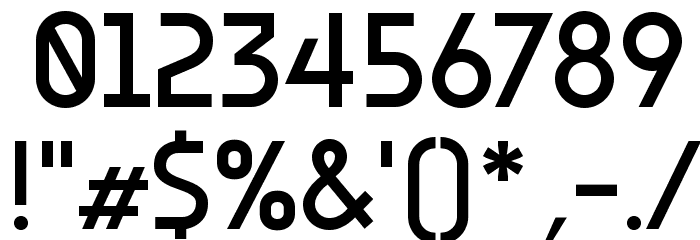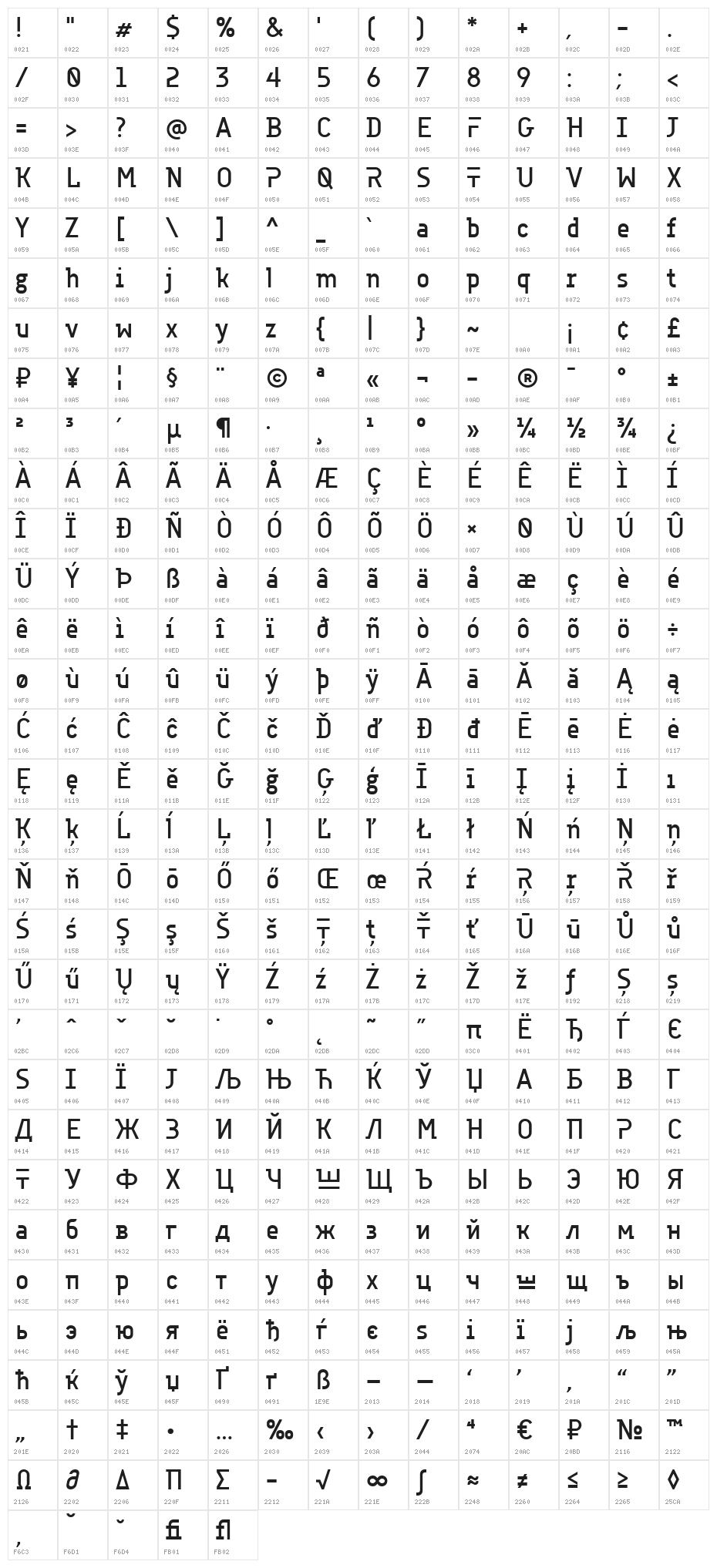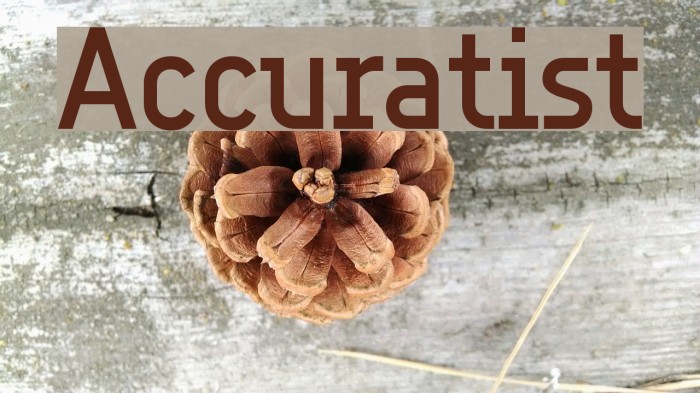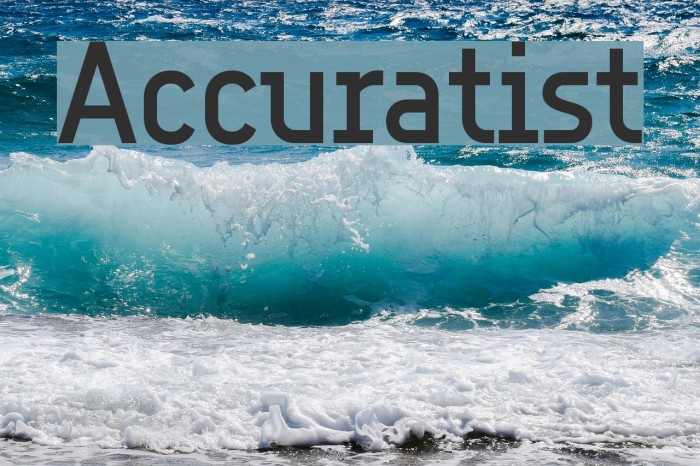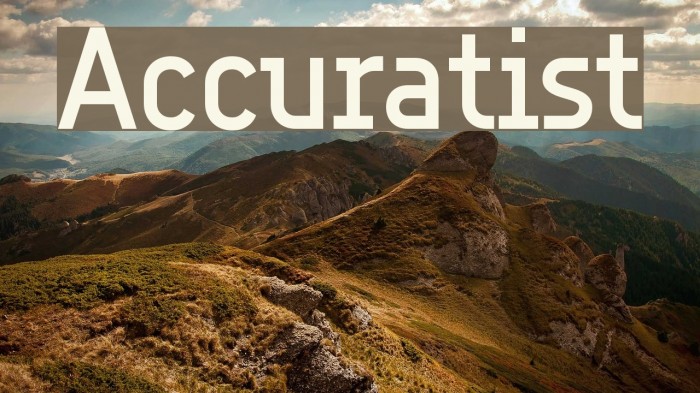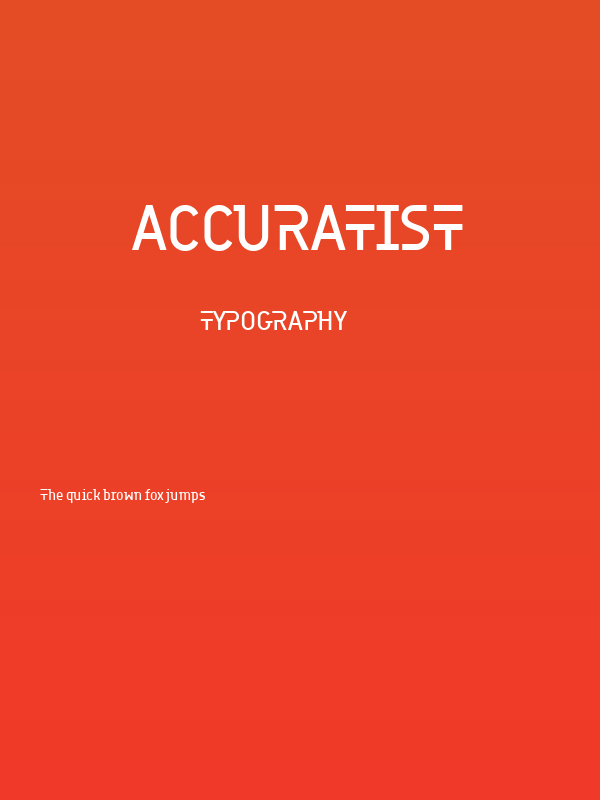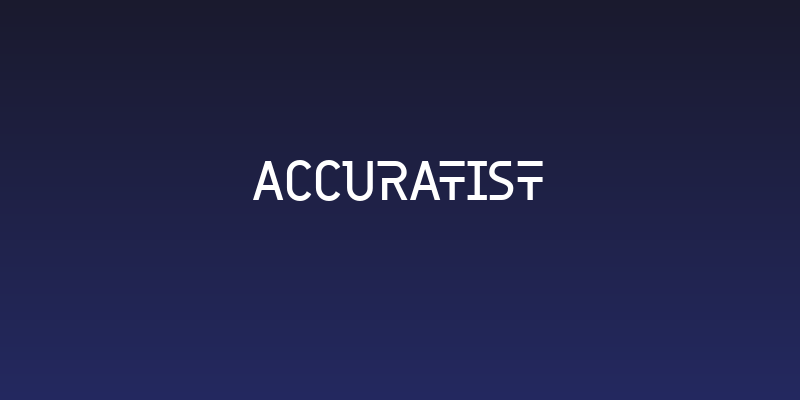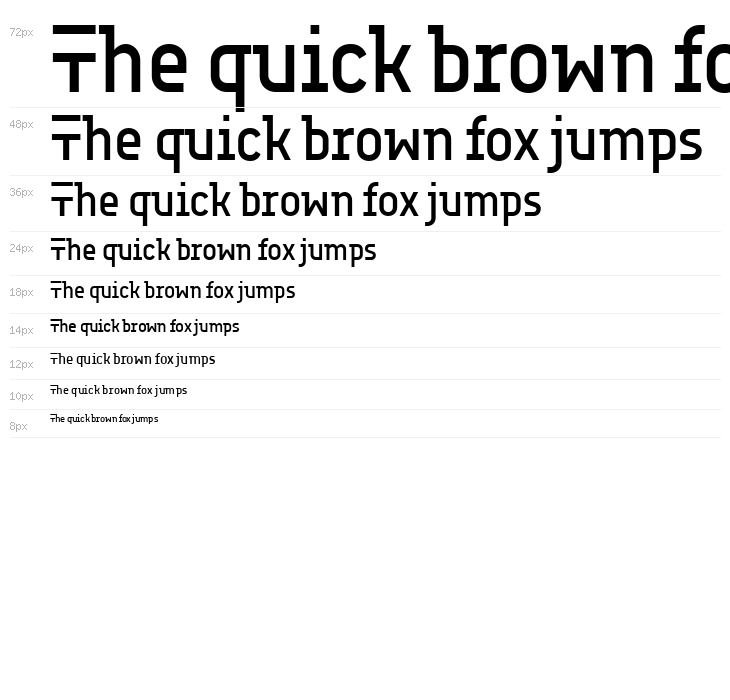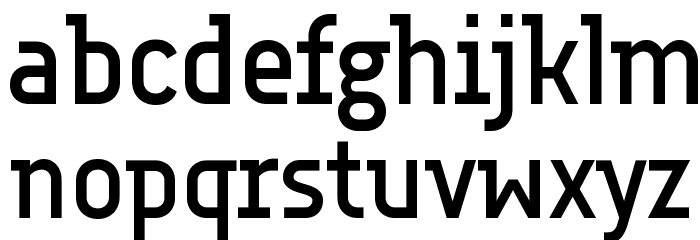
Accuratist Font
Accuratist Description
This font features a modern and geometric design with clean, straight lines and a uniform stroke width. The characters are constructed with a focus on clarity and readability, making it suitable for both digital and print media. The uppercase letters exhibit a strong presence with their bold and structured appearance, while the lowercase letters maintain a consistent style that complements the overall aesthetic. The numerals and special characters are designed to match the font's geometric nature, ensuring a cohesive look across all text elements.